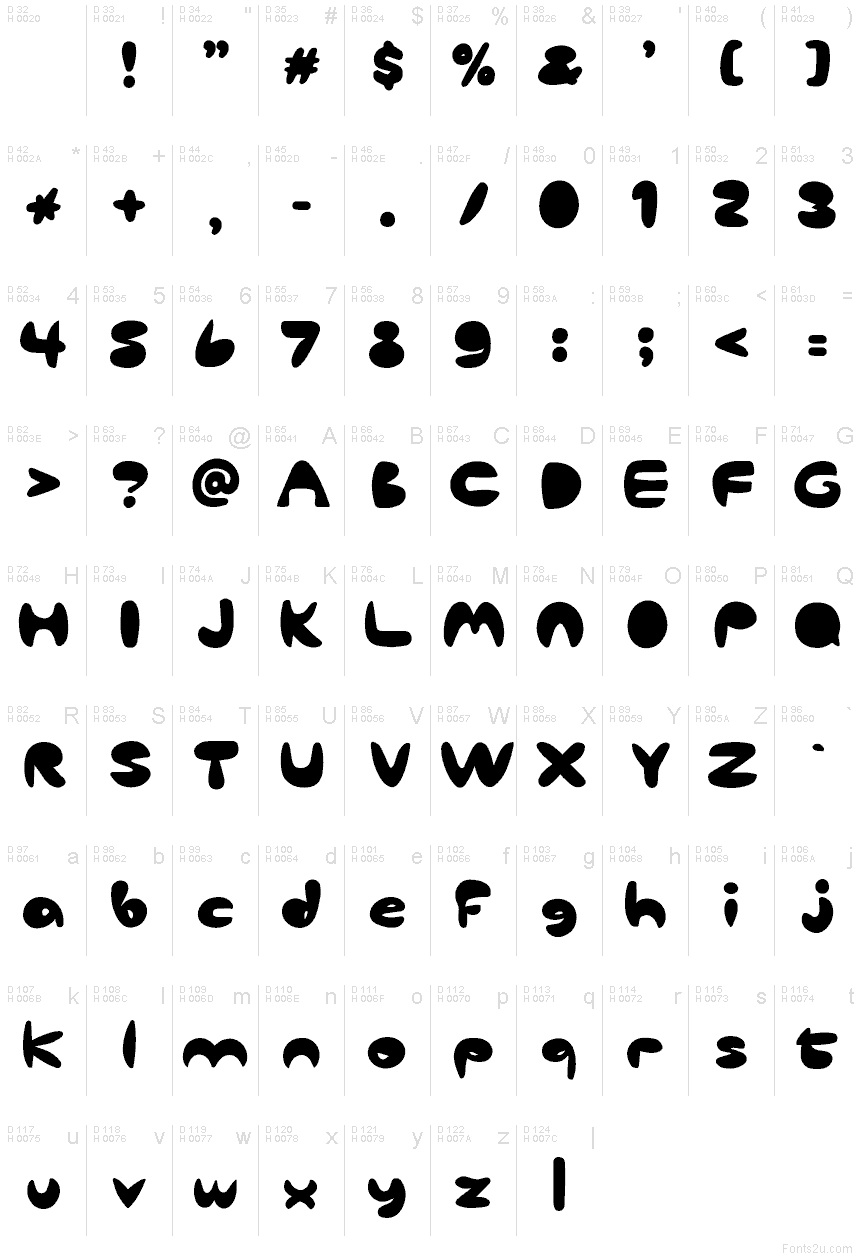
Typoghost
Typoghost font by BlackFridayFont FMF is a free cartoon display font that brings a friendly haunt to your headlines. Chunky, rounded blobs wobble like ink puddles, giving letters a soft, squishy feel with a mischievous grin rather than a scare. It lands right in that sweet spot between spooky and cute, so your message feels playful, readable, and bold at any size.
Using Typoghost, you can dial up the fun on Halloween flyers, kids’ party invites, candy packaging, game titles, stickers, and YouTube thumbnails. This free font shines when set large with snug spacing; pair it with a thin geometric sans for body copy to keep the gooey charm upfront without overwhelming the page.